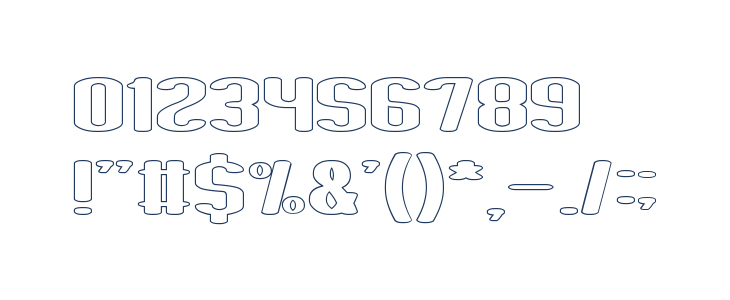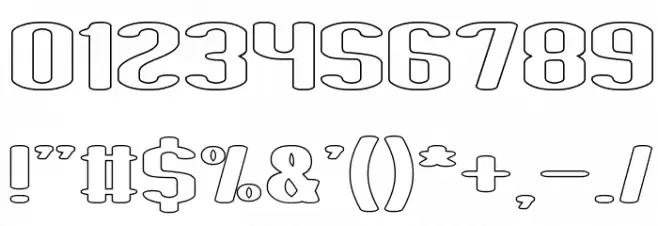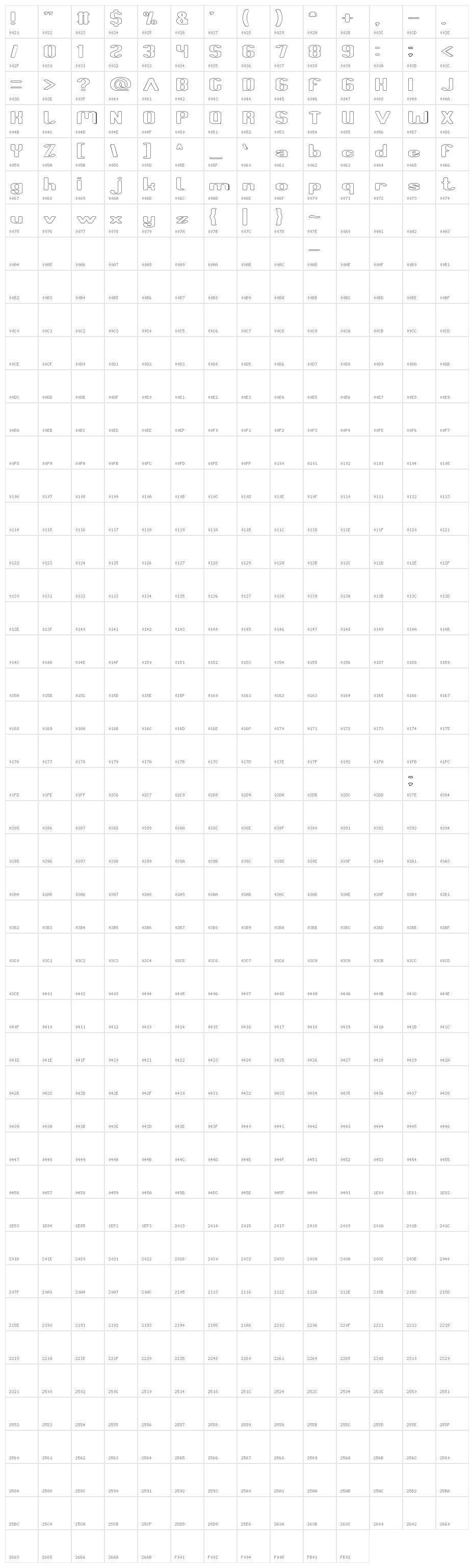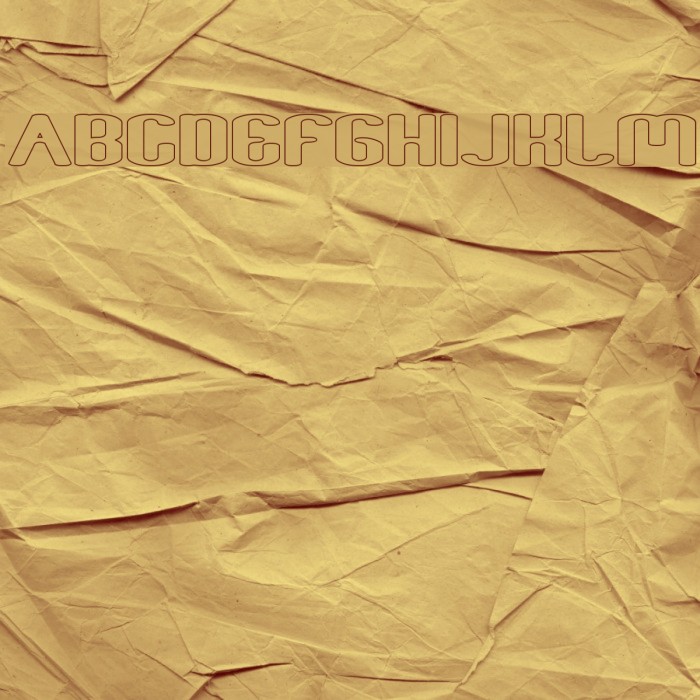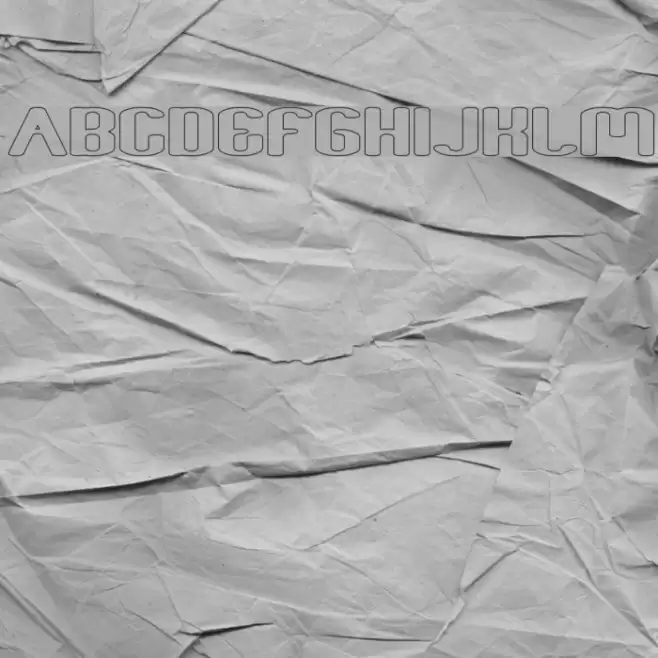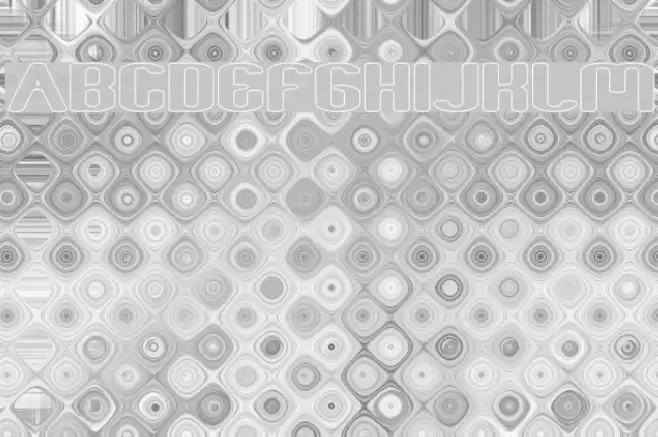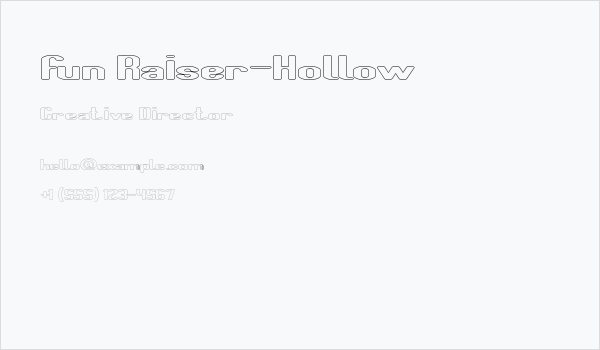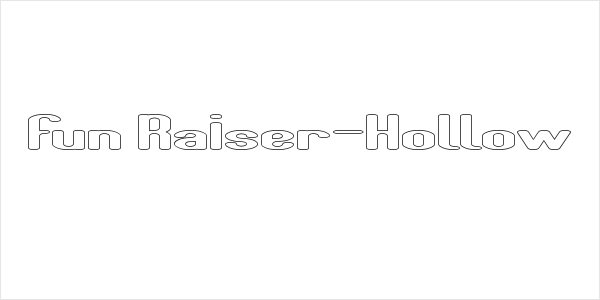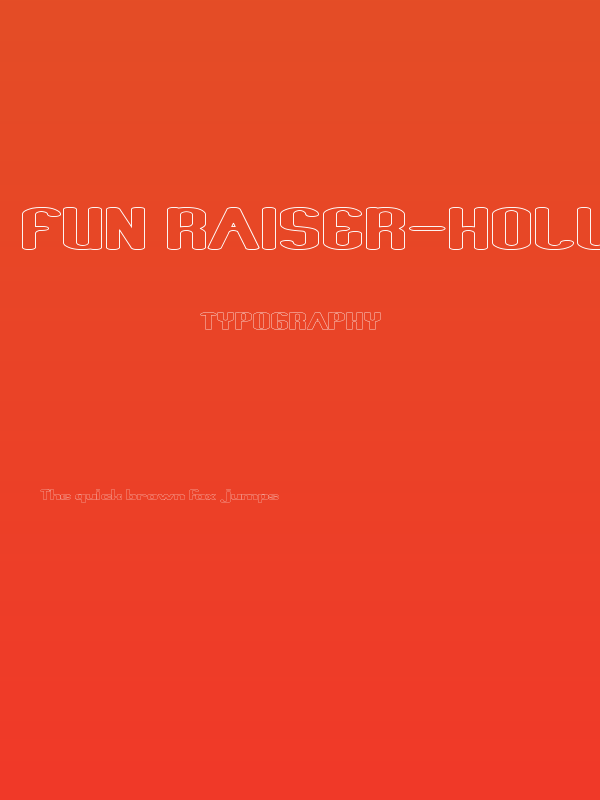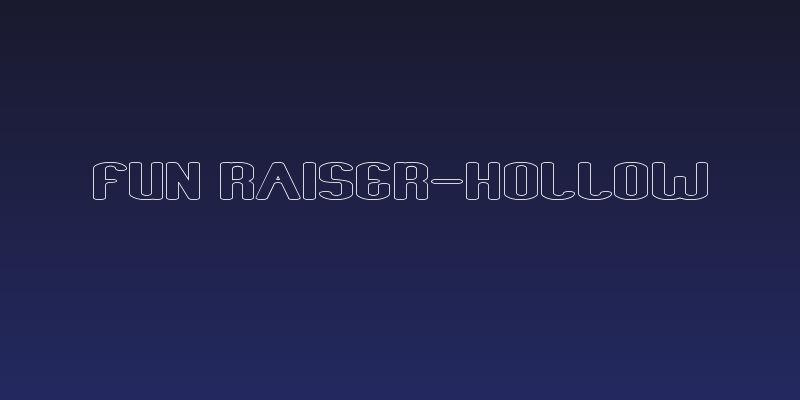
Fun Raiser-Hollow Font
Fun Raiser-Hollow Description
This font features a playful and modern hollow design with rounded edges, giving it a friendly and approachable appearance. The uppercase and lowercase letters maintain consistent proportions, creating a harmonious look. The numbers and special characters are designed to match the overall style, ensuring uniformity across all text. The hollow aspect adds a unique dimension, making it suitable for eye-catching designs. Its clean lines and open spaces make it versatile for various creative projects.
| Proposed Projects | Ideal for children's books, playful branding, posters, and creative invitations. |